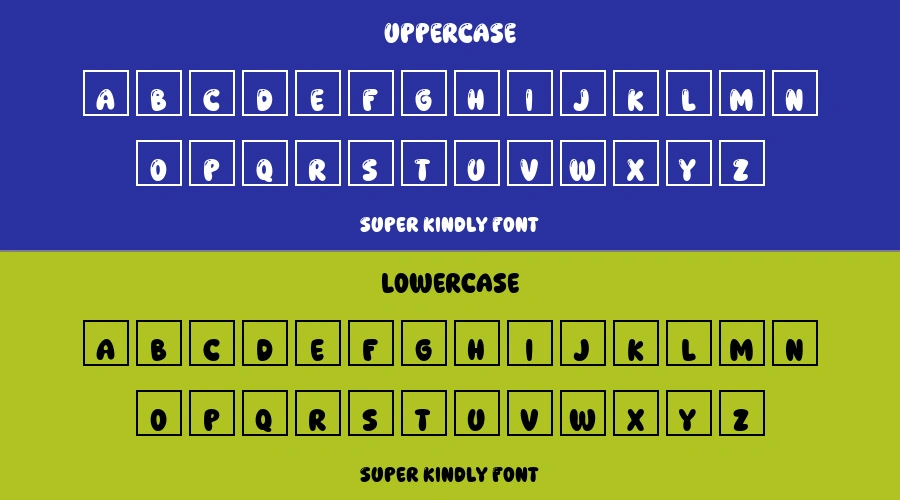
About Super Kindly Font
Super Kindly Font stands out for its distinctive combination of impactful forms and refinement. Ideal for poster titles, it provides the longevity and cultural relevance that professional projects demand. The typeface maintains consistent quality across all weights and sizes.
Key features include refined geometric precision and practical swash characters, enhancing typographic expression. In product names applications, Super Kindly Font demonstrates exceptional impact retention. The stroke modulation and cultural relevance contribute to its distinctive character and professional appeal.